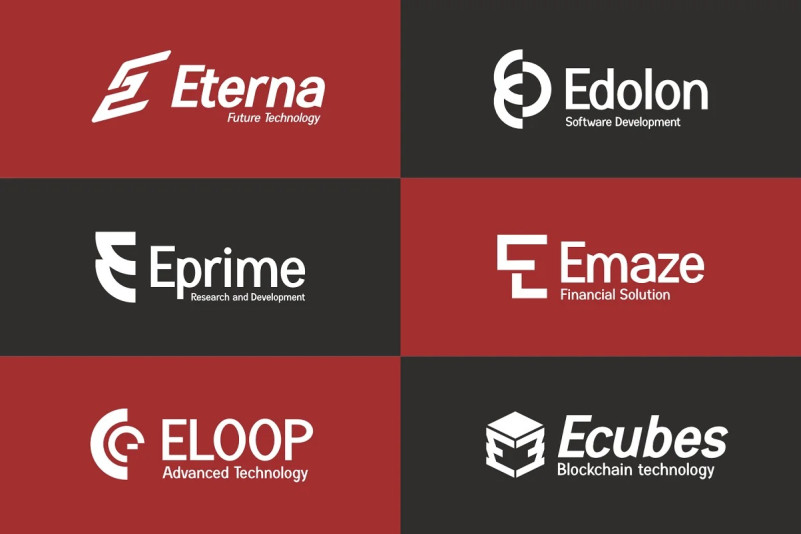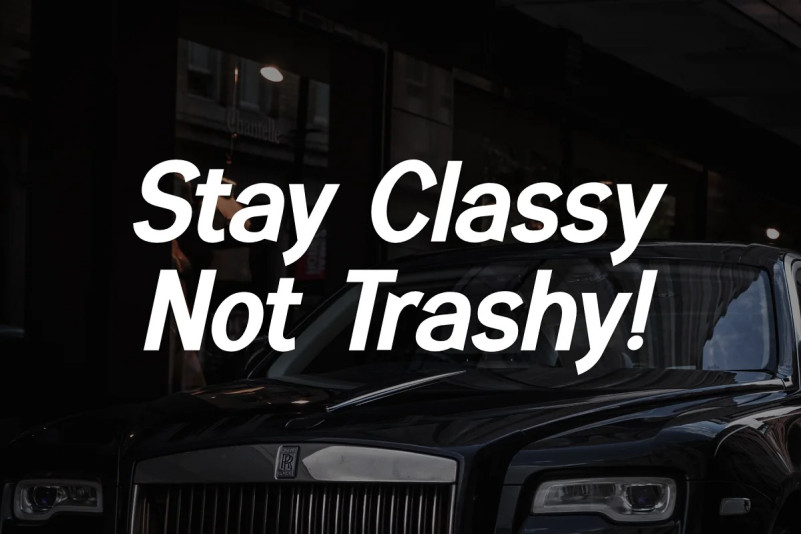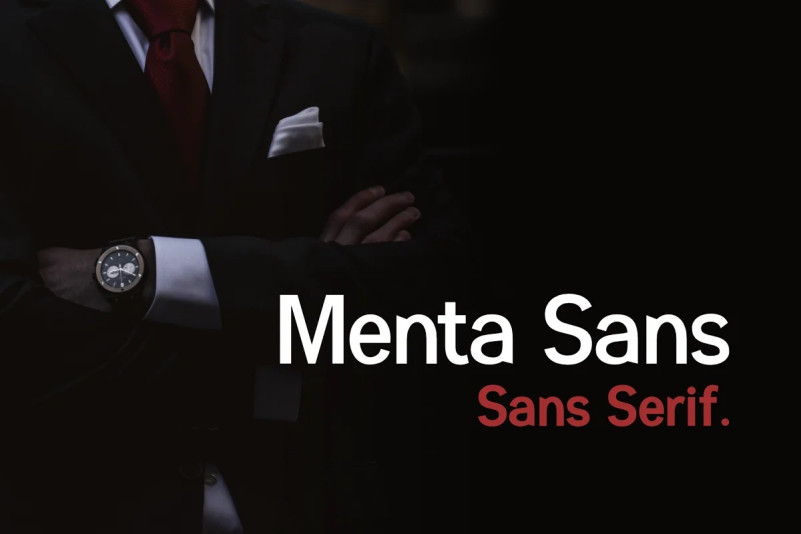
Menta Sans Font
Menta Sans Font is an elegant Sans Serif Font created by Dumadistyle. With a natural and modern style, this font is perfect for your project designs. Menta Sans was created to help you improve the quality of your design, especially in branding your company. This font includes 6 font families Styles Regular, Italic, Thin, Thin Italic, Bold, Bold Italic, complete with upper and lower case.
The Menta Sans font comes with a modern style that is perfect for various design purposes, such as Logos, Titles, Book Covers, Branding, quotes, advertisements. film cover, company name, Headline, and more. Check out the preview above to get a match for your project. Stay classy!